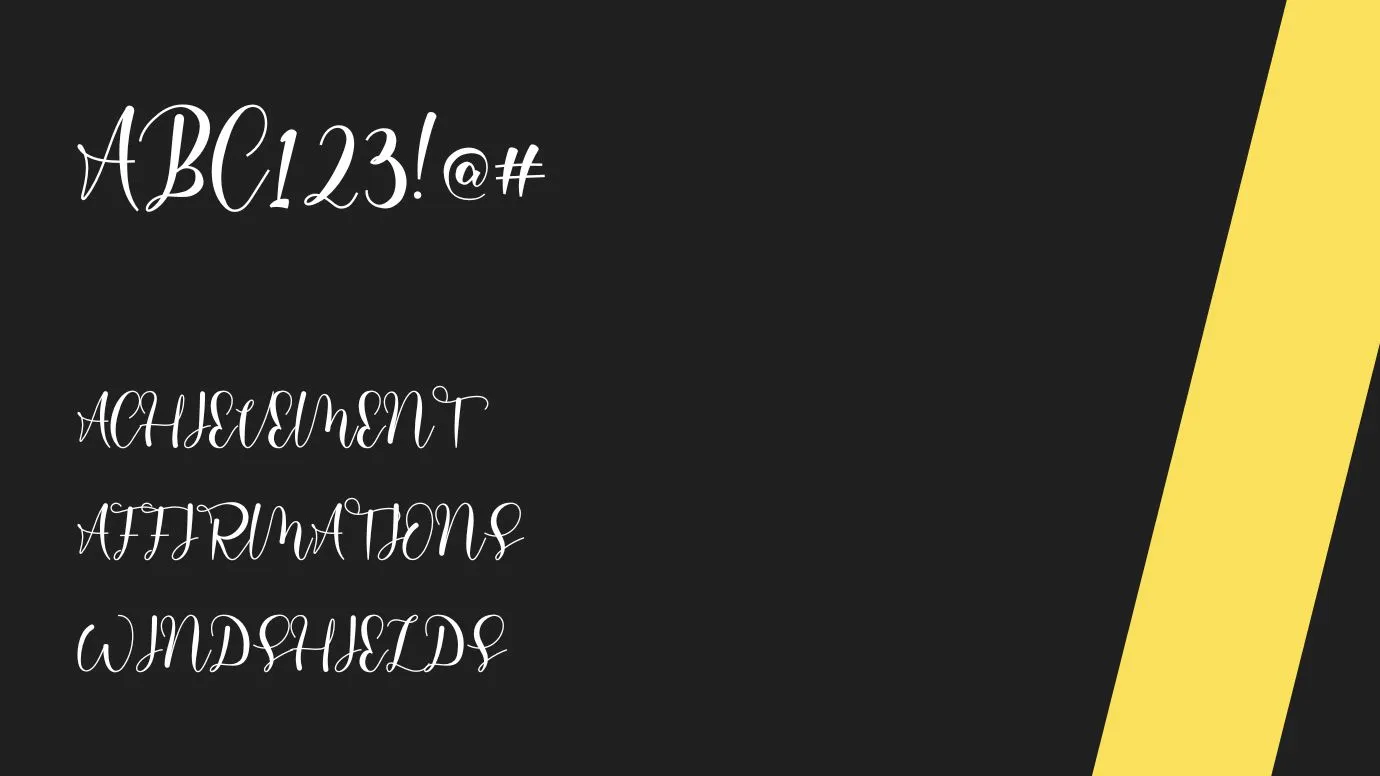
Introducing Abella Font is a calligraphy font designed by a gorgeous designer Nana Nissa. It is beautiful, modern, classic and is perfect for your designs.
It allows you to create custom dynamic text. You can access it by turning on stylistic alternates, swash as well as ligatures in Photoshop, Adobe Illustrator, Adobe InDesign, or through Canva, Adobe, and Cascading Style Sheet.
It comes in one regular style and makes perfect pair with golden gates font that can be used in logos, printed quotes, invitations, cards, product packaging, headers, and anything else beyond your imagination.
If you look at lovely heart font from the font family it has the same features and characters. With varying baselines, smooth lines, gorgeous glyphs, and stunning alternates, Abella’s typeface feel equally charming and elegant.
Having a complete set of characters including uppercase and lowercase letters, numbers, punctuation, and symbols. It also supports many other international languages.
This fantastic typeface is manufactured by a beautiful designer Nana Nissa. While designing the typeface she focussed on a clean and clear look.
- Abella Regular
| Name | Abella Font |
| Style | Calligraphy |
| Designer | Nana Nissa |
What is the texture of the Abella typeface?
Abella Font is a calligraphy font designed by a gorgeous designer Nana Nissa. The typeface has a complete set of characters including uppercase and lowercase letters and many more.